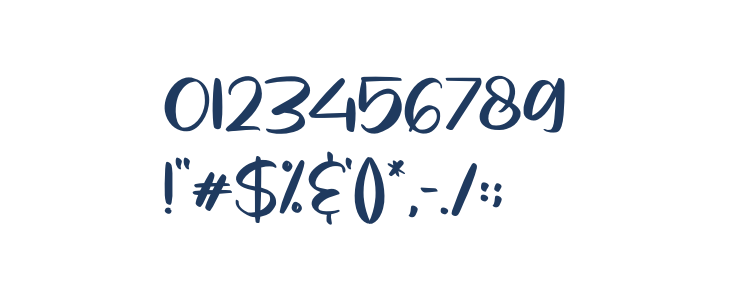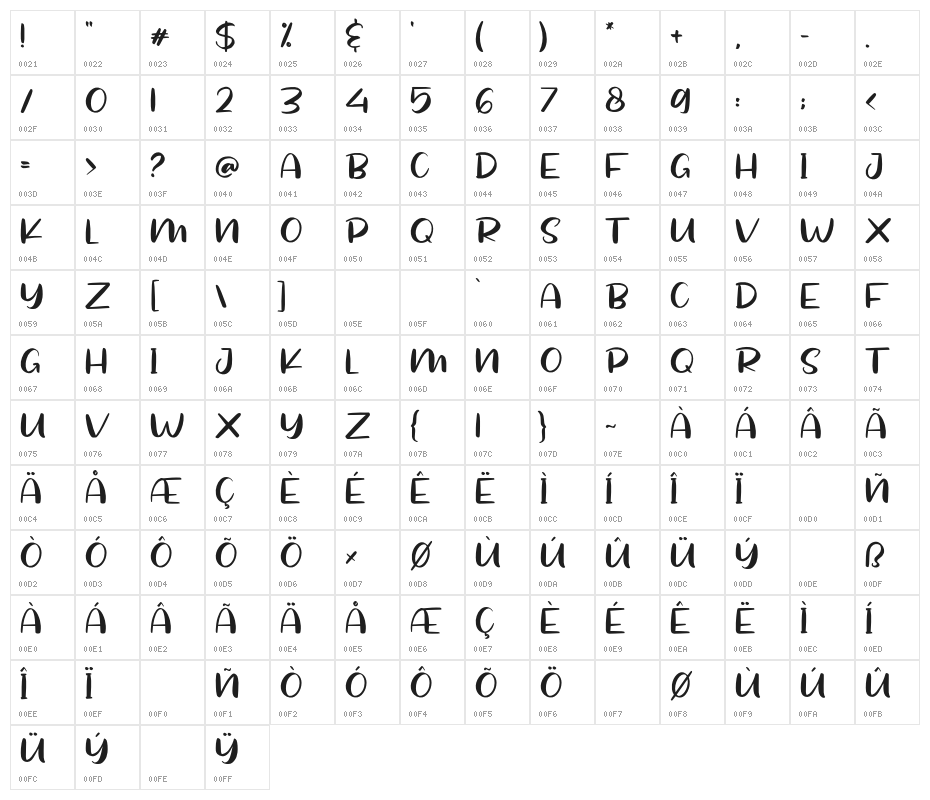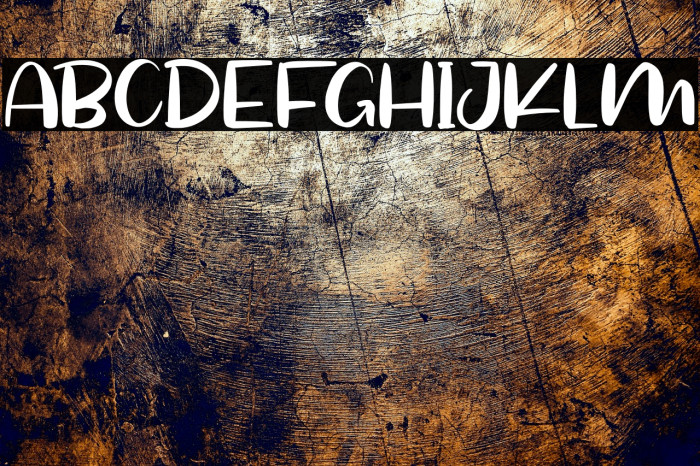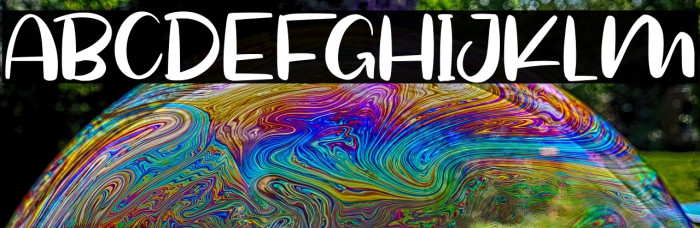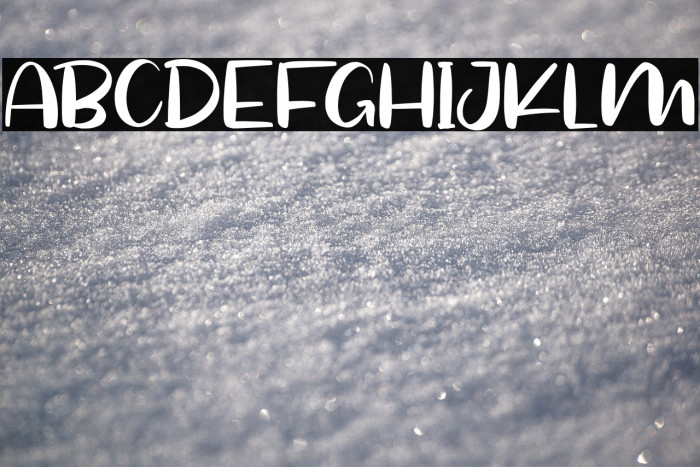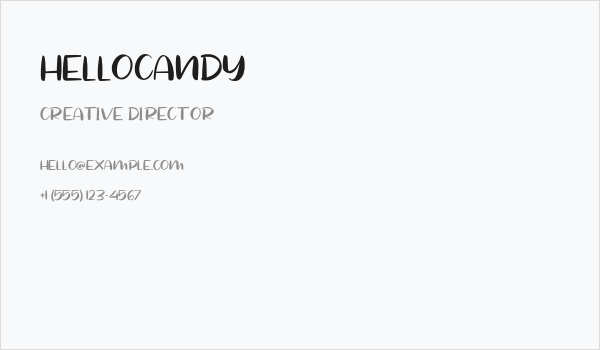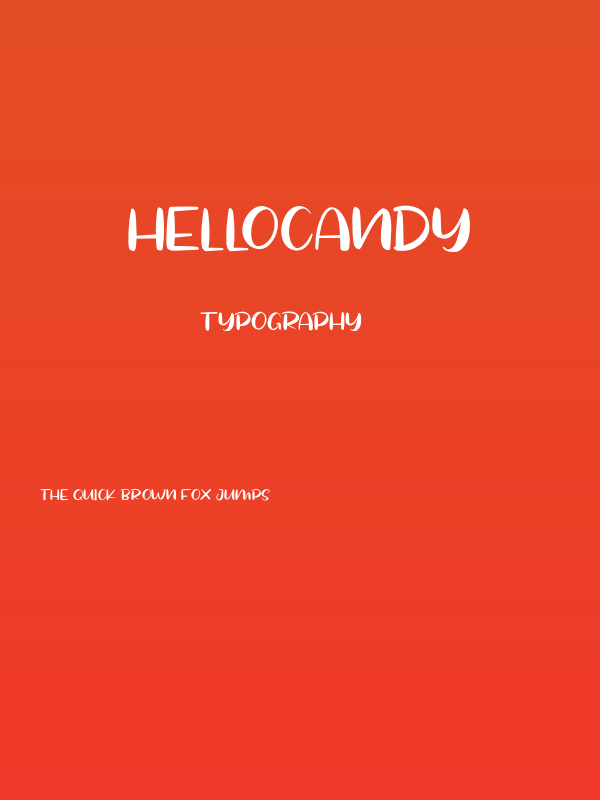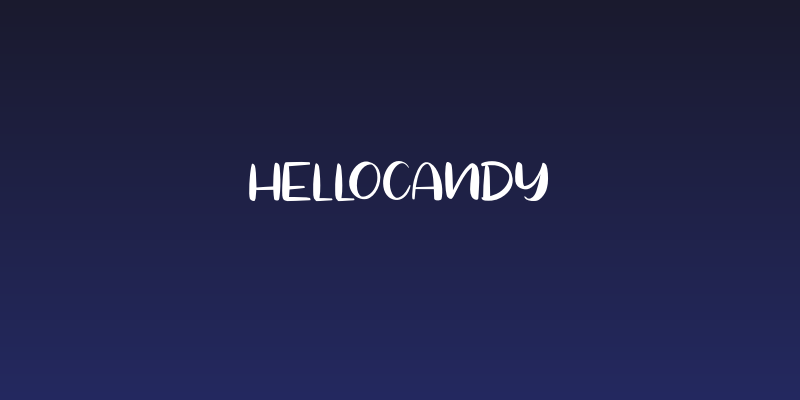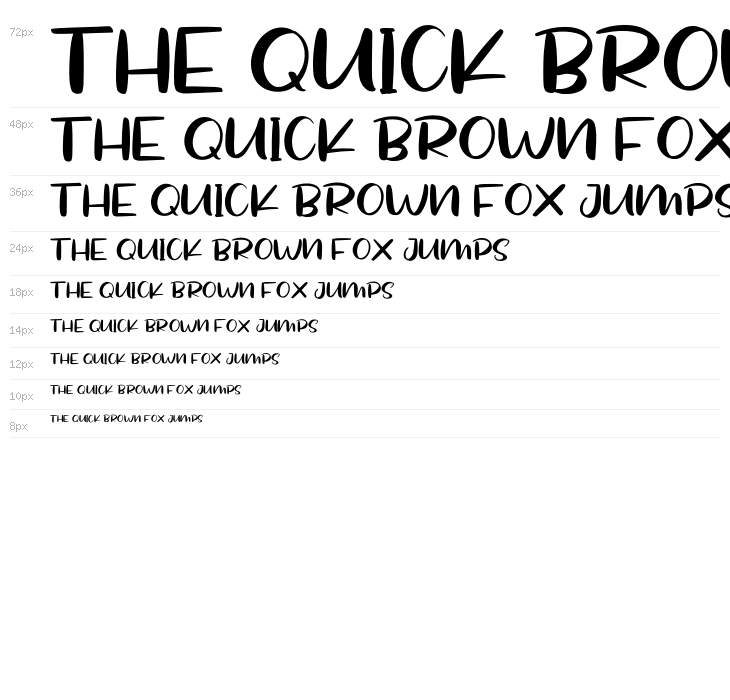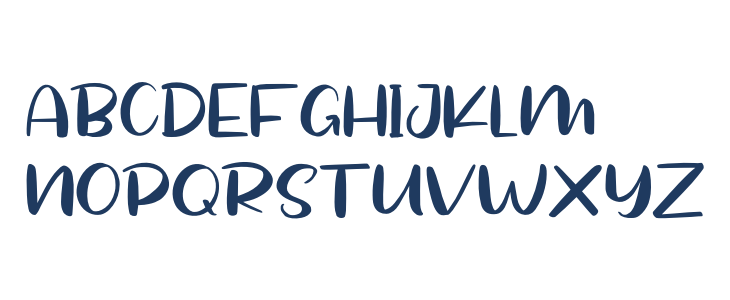
HelloCandy Font
This font exhibits a playful and energetic style, characterized by its bold and rounded letterforms. The strokes are thick and consistent, giving it a strong presence on the page. The uppercase and lowercase letters maintain a cohesive look, with a slight slant that adds a dynamic feel. The numbers and special characters are equally bold, ensuring readability and uniformity across different uses. The overall design is modern and friendly, making it suitable for a variety of creative projects.
| Proposed Projects | Ideal for children's books, playful branding, posters, and social media graphics. |